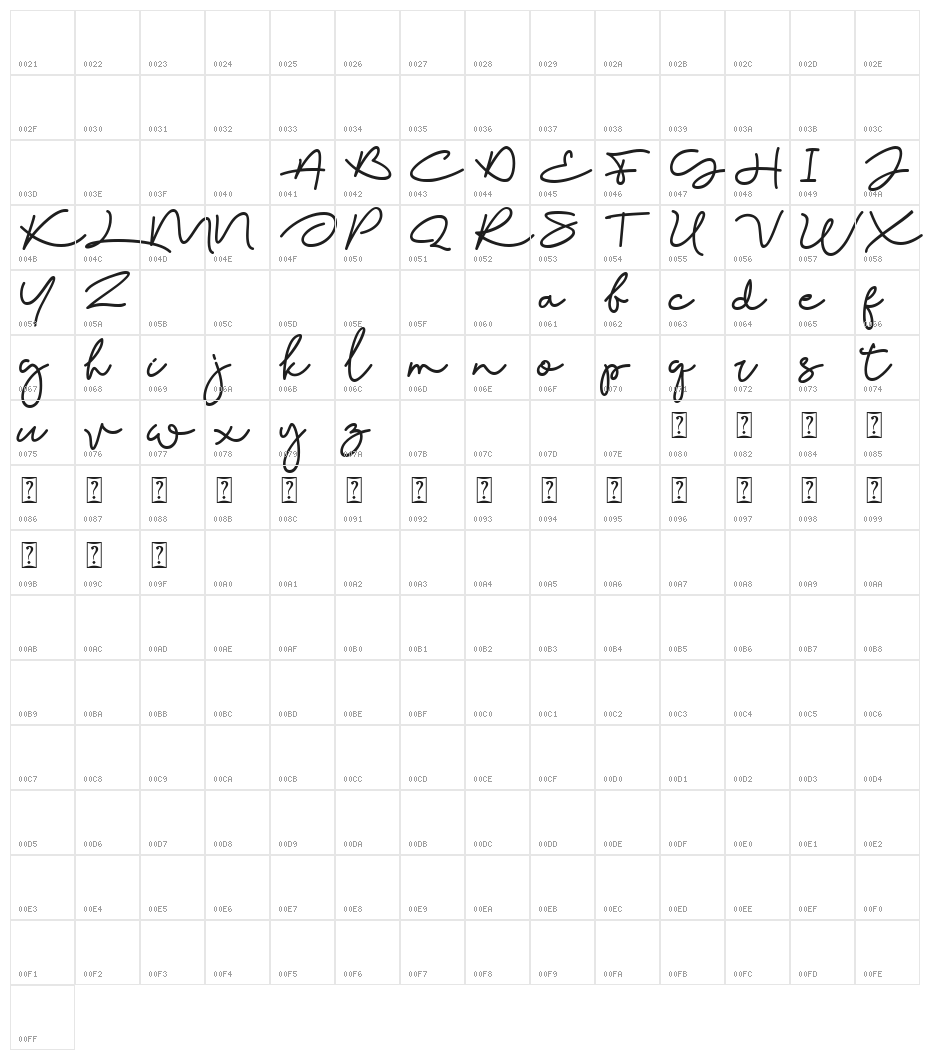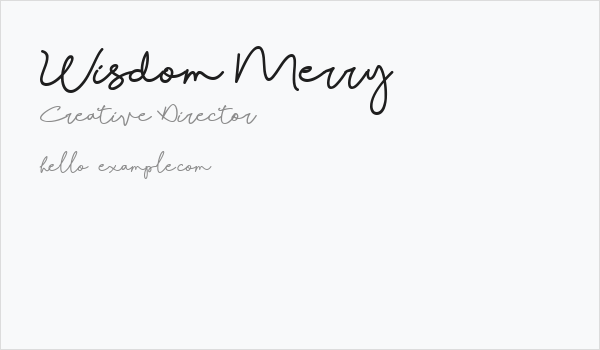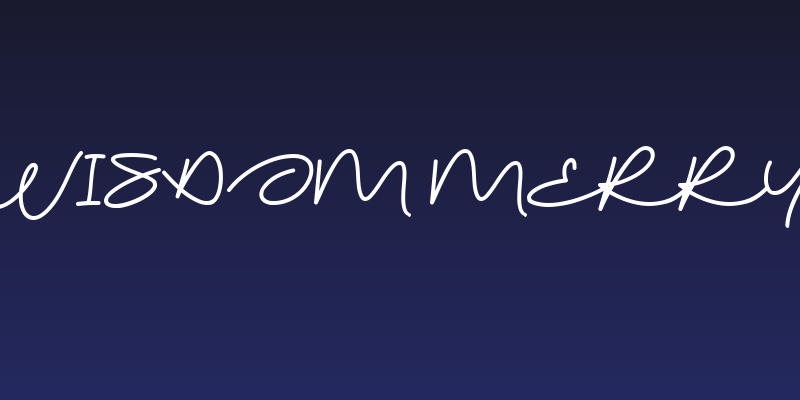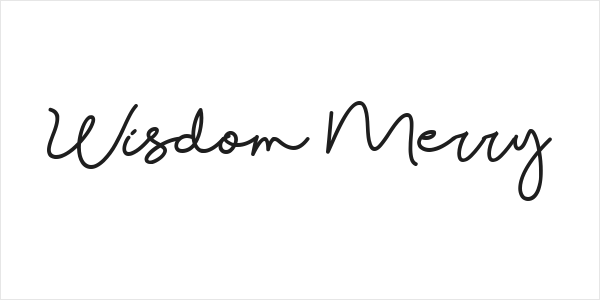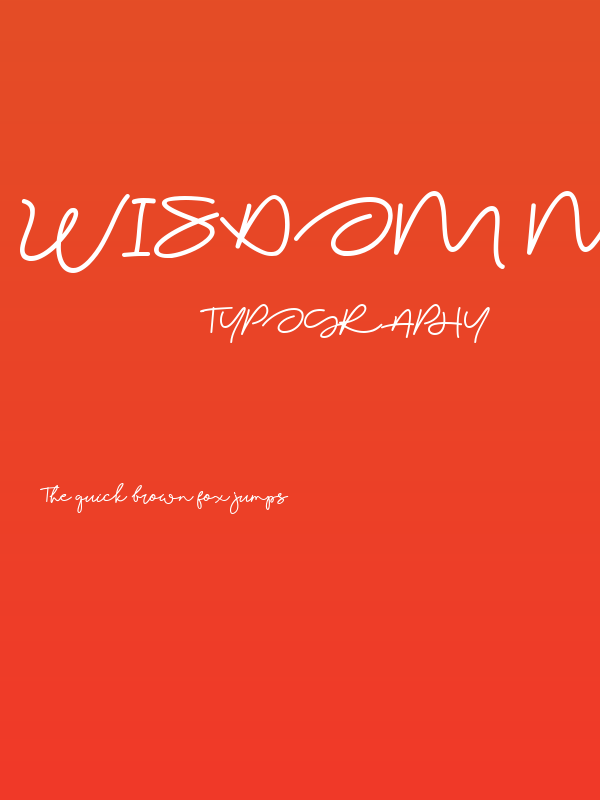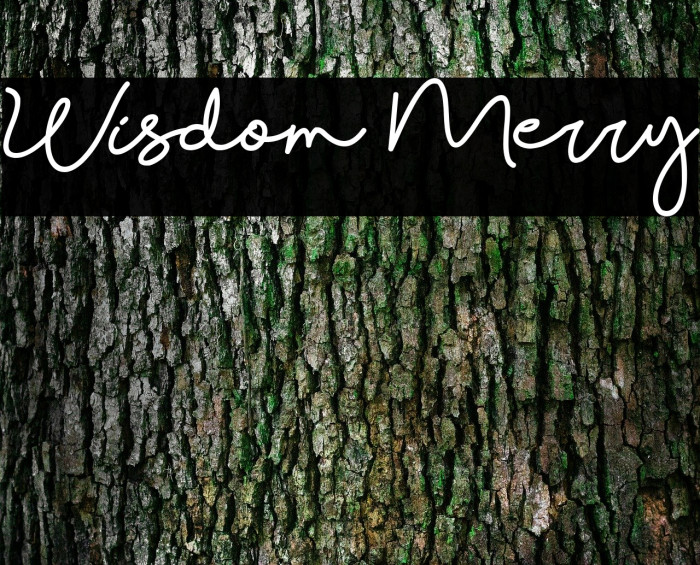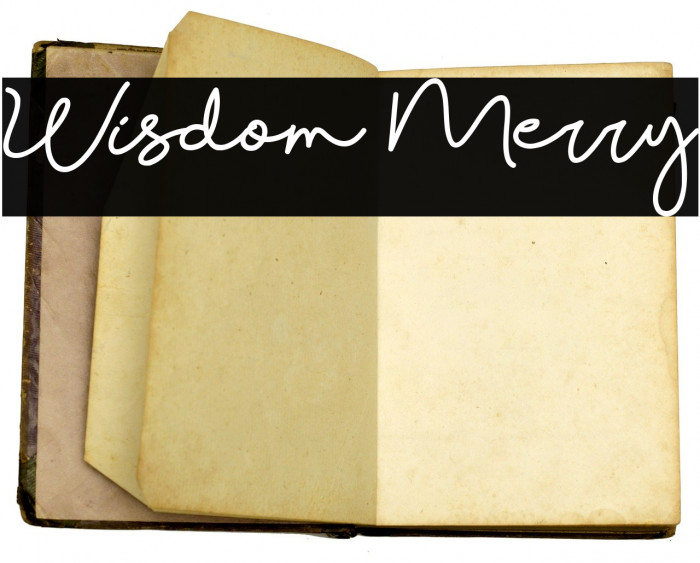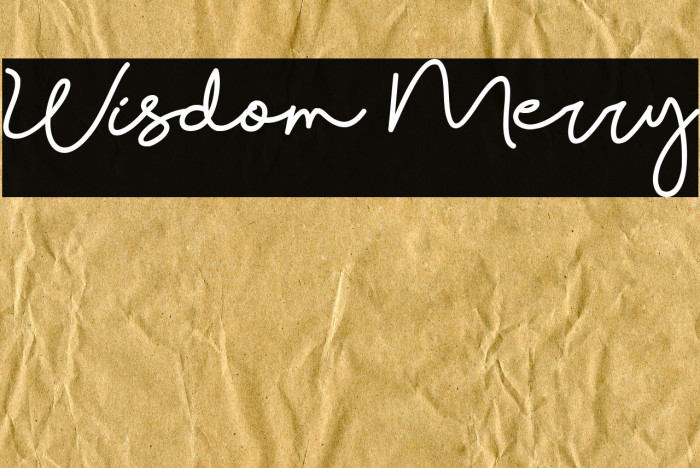
Wisdom Merry Font
Wisdom Merry Description
This font features a flowing, cursive style with a modern twist. The uppercase letters are elegantly connected, creating a seamless and fluid appearance. The lowercase letters maintain a consistent loop and curve, enhancing the overall aesthetic. The strokes are smooth and continuous, giving the font a handwritten feel. The characters are slightly slanted, adding to the dynamic and lively nature of the design. This font is perfect for projects that require a personal touch, such as invitations, greeting cards, or branding materials. Its unique style makes it stand out while remaining legible and stylish.
| Proposed Projects | Ideal for invitations, greeting cards, branding, and personal projects. |